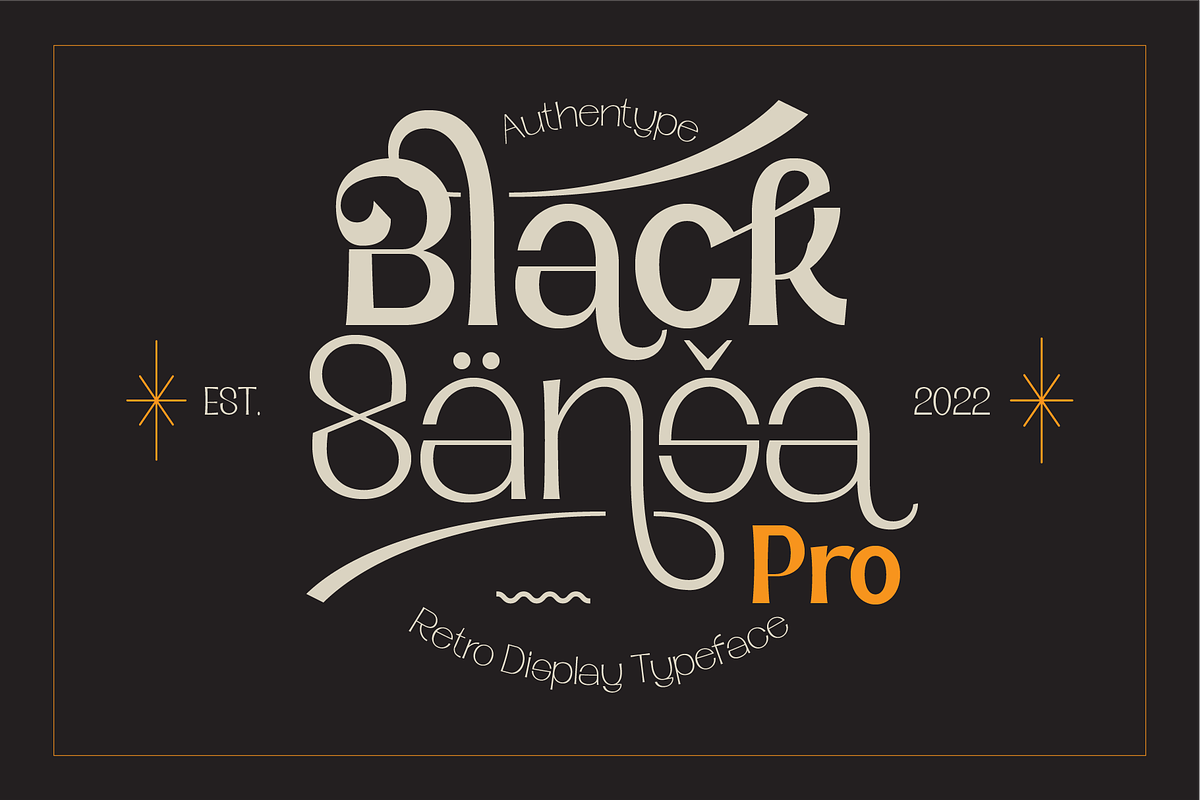
Black Sansa Pro - Retro Display Font Free Download
Inject some vintage flair into your designs with Black Sansa Pro - Retro Display Font Free Download. This bold, stylish typeface is a tribute to retro aesthetics, making it the perfect choice for posters, logos, product labels, album covers, and anything that needs a nostalgic yet modern twist.
With its chunky curves, clean lines, and charismatic presence, Black Sansa Pro commands attention while keeping a cool, groovy vibe. It’s designed to turn heads and add personality to your creative projects.